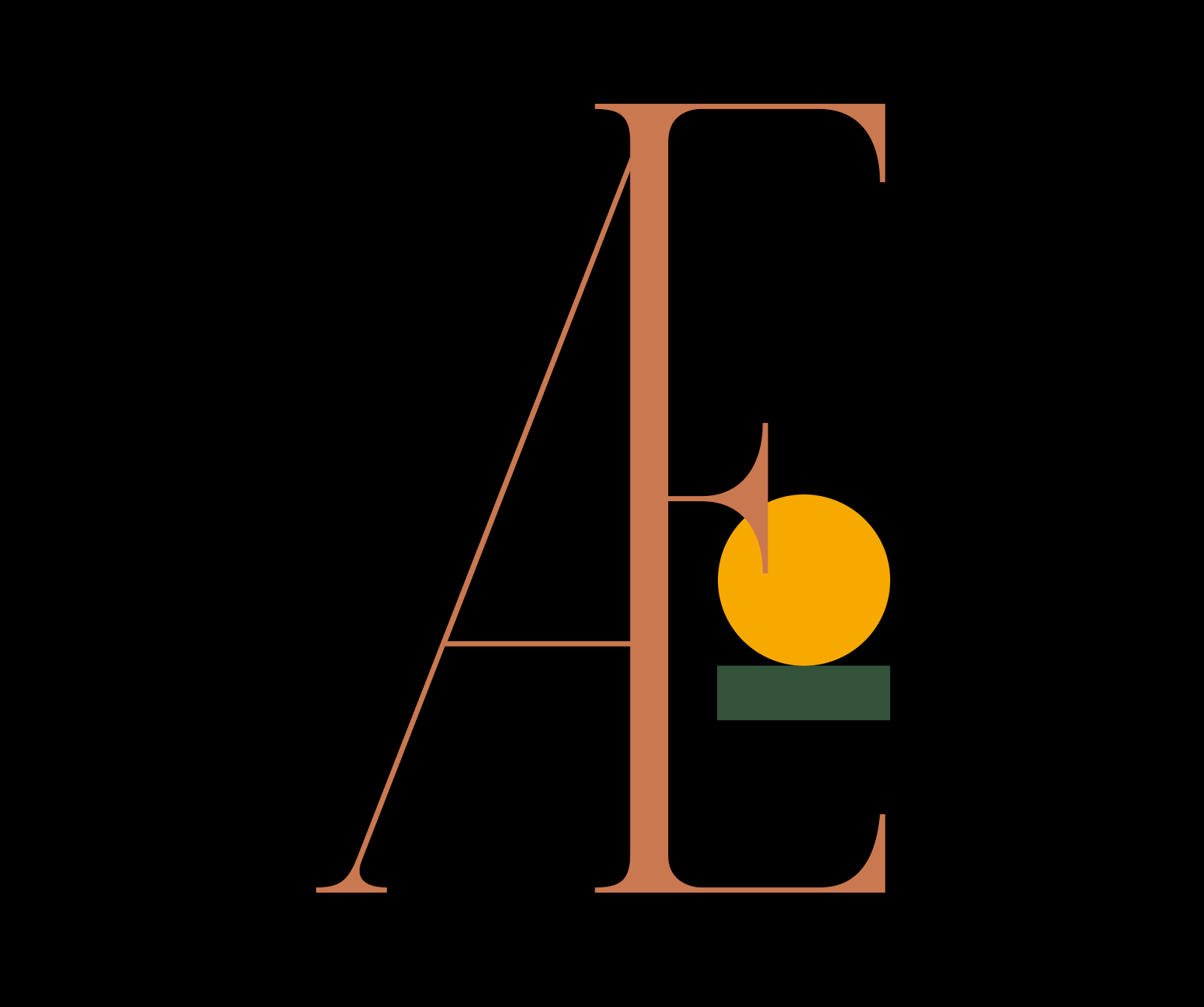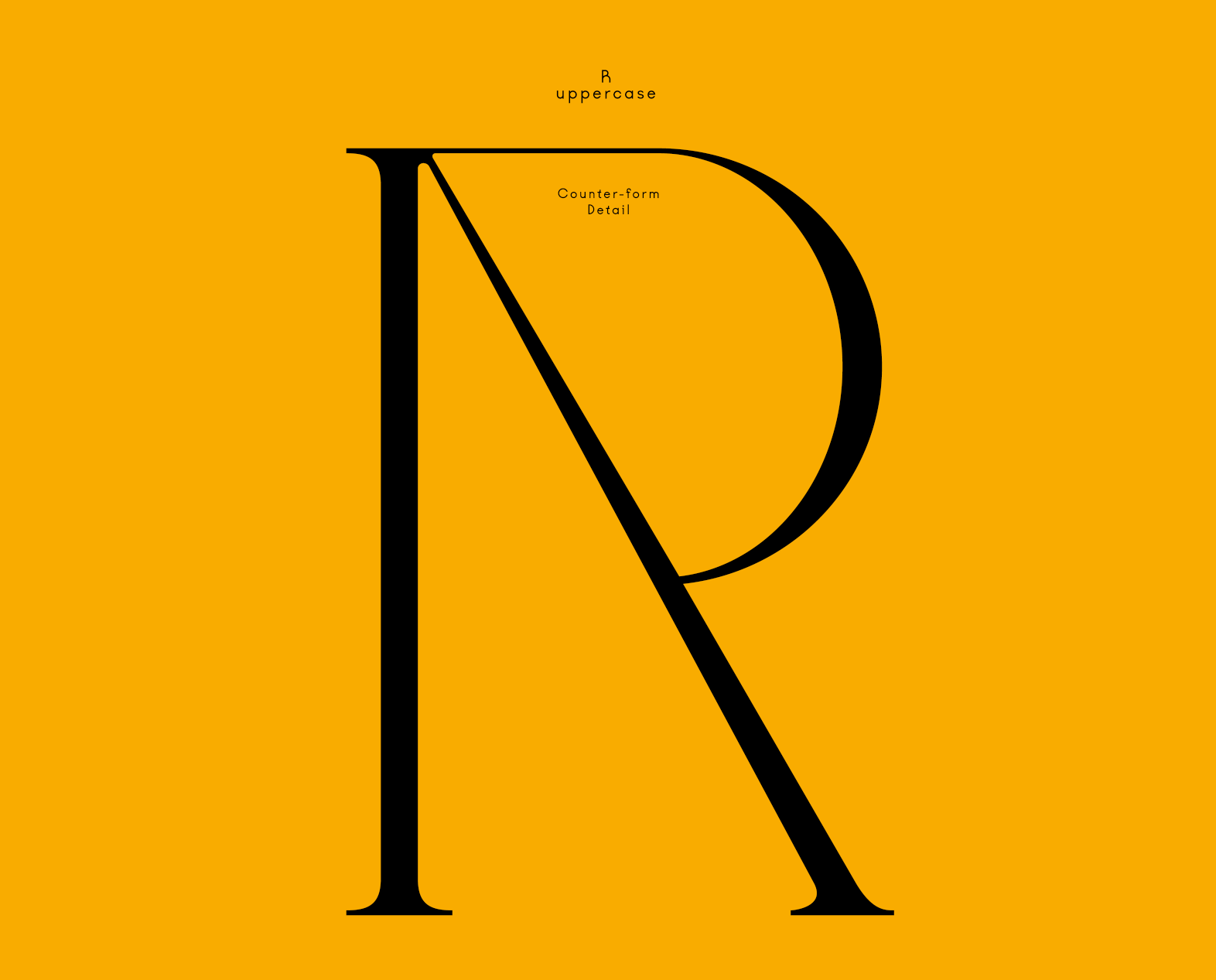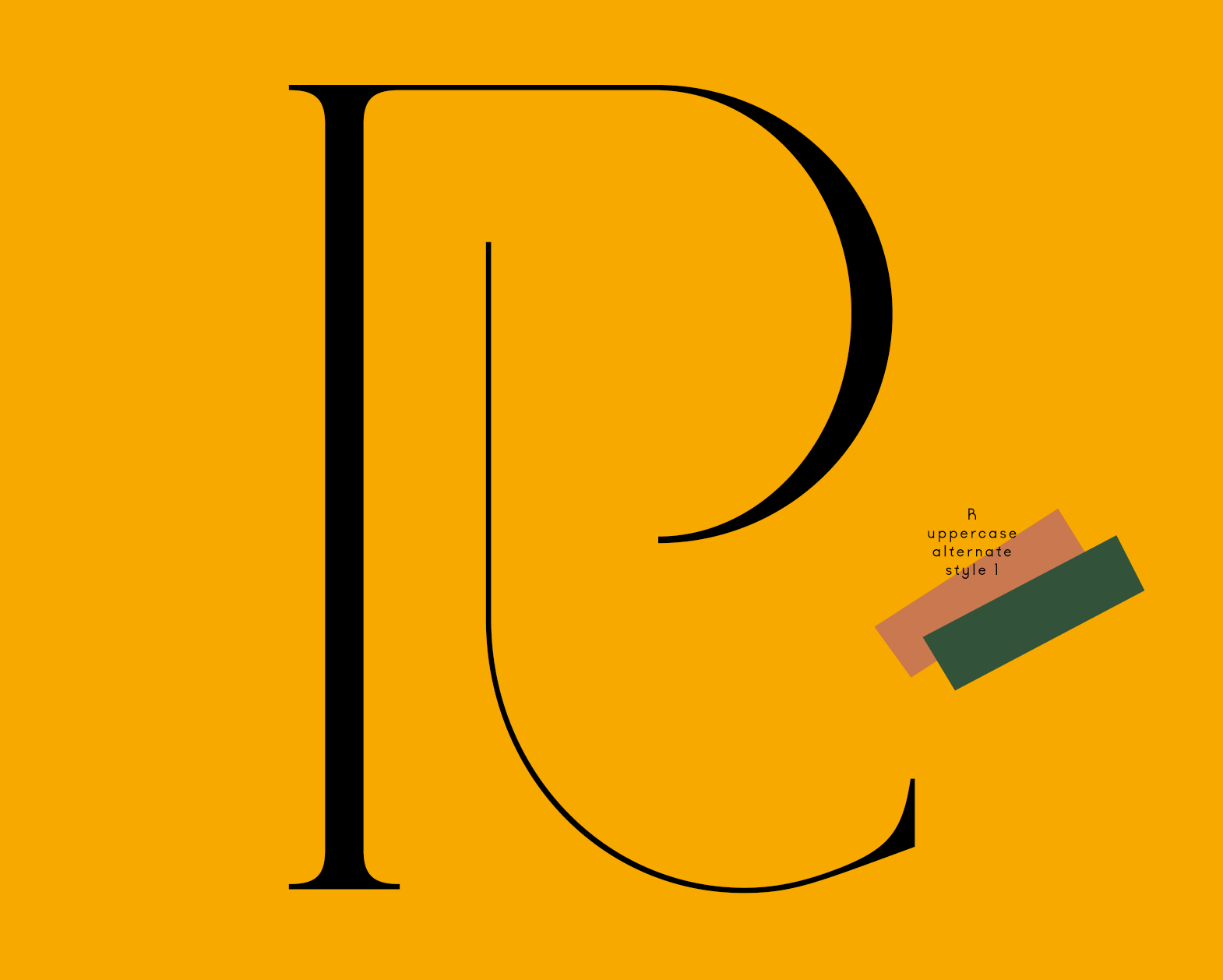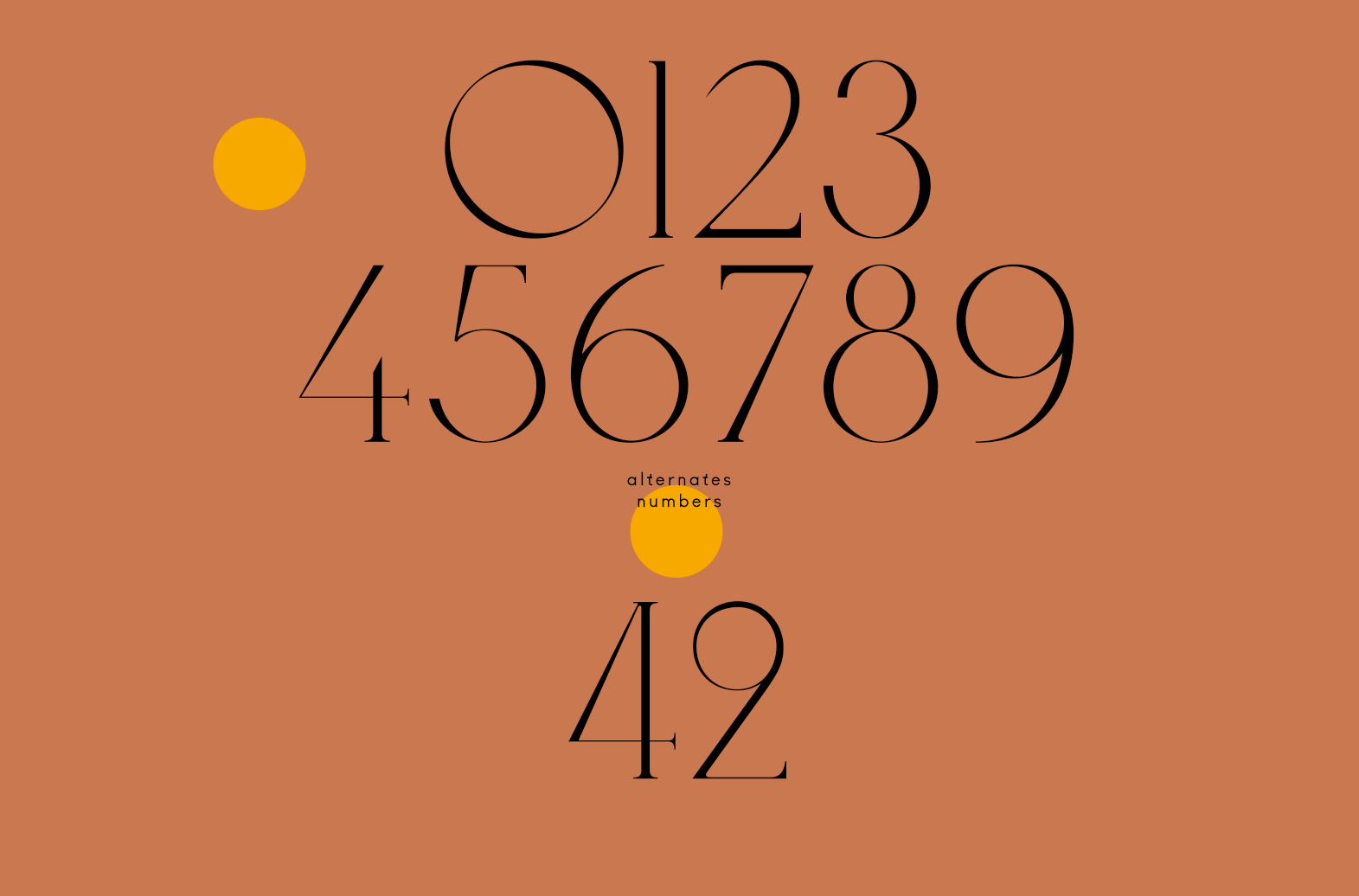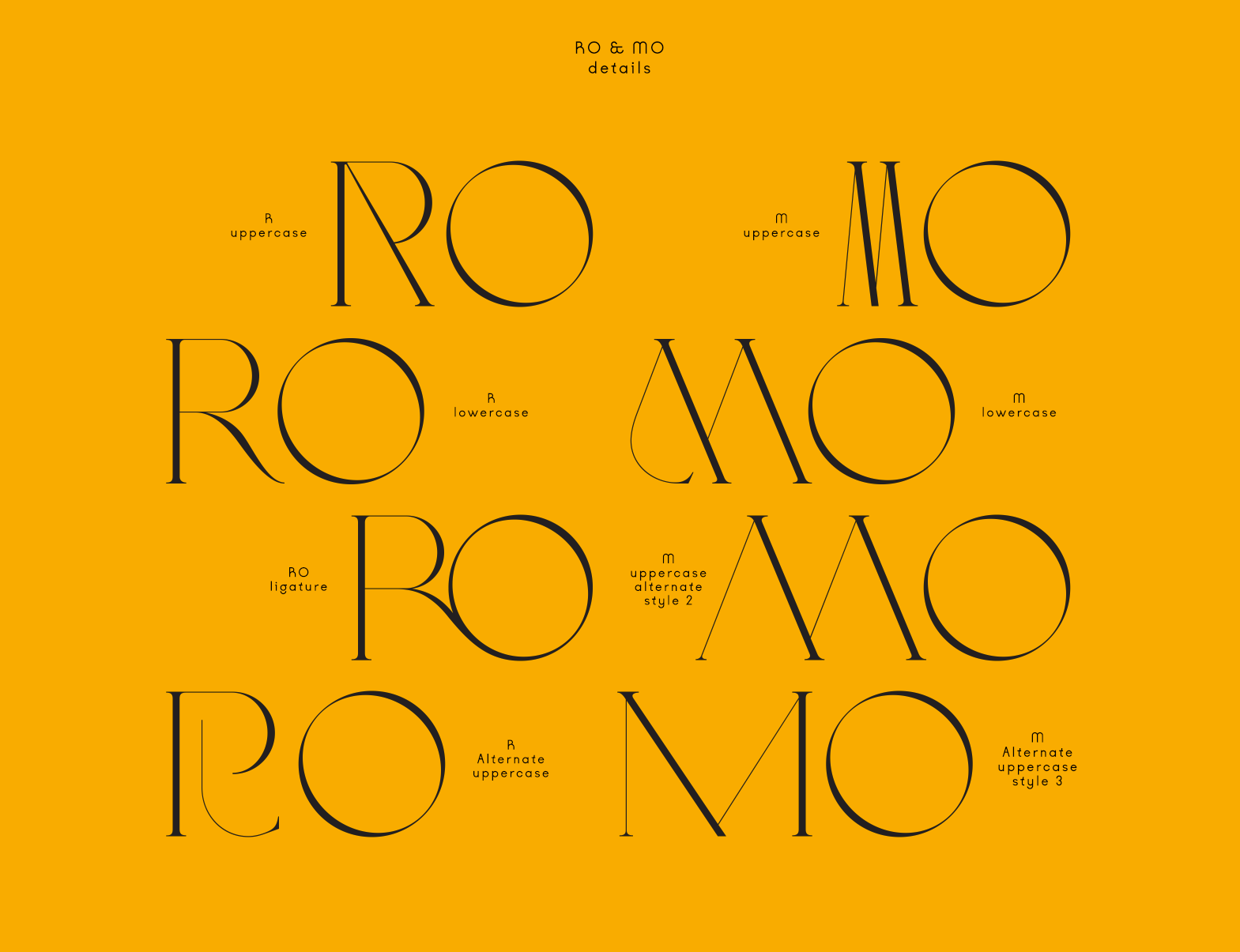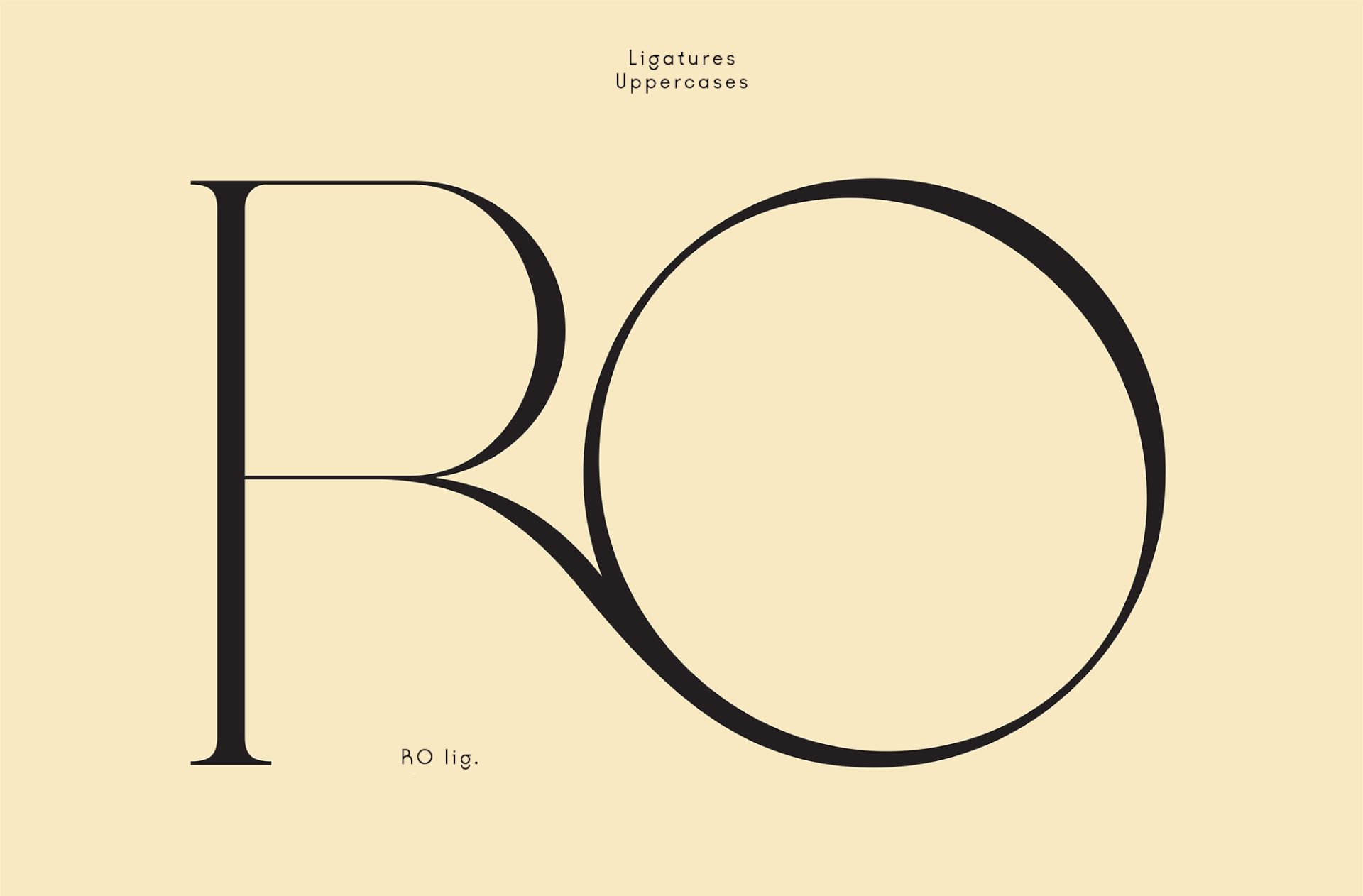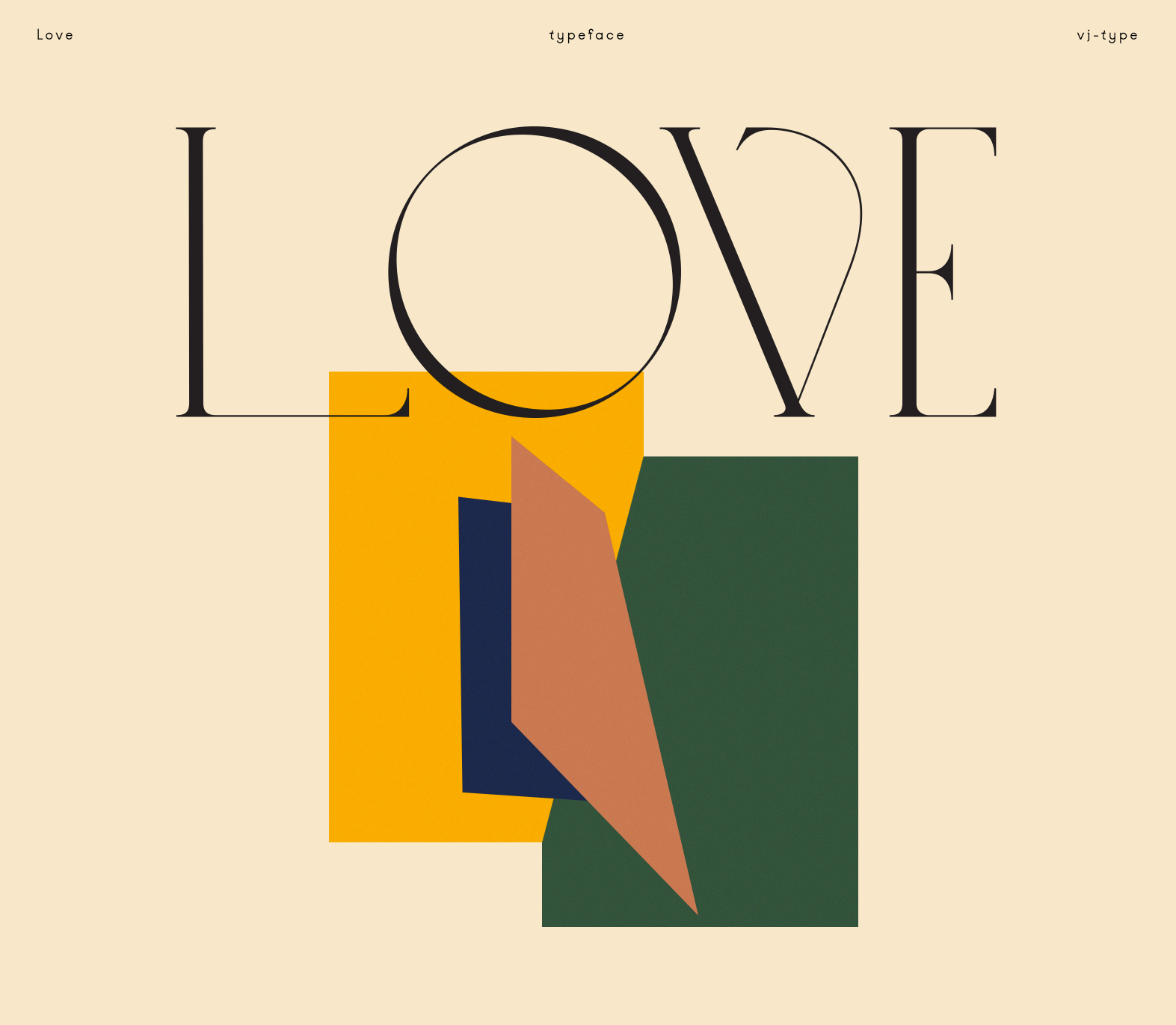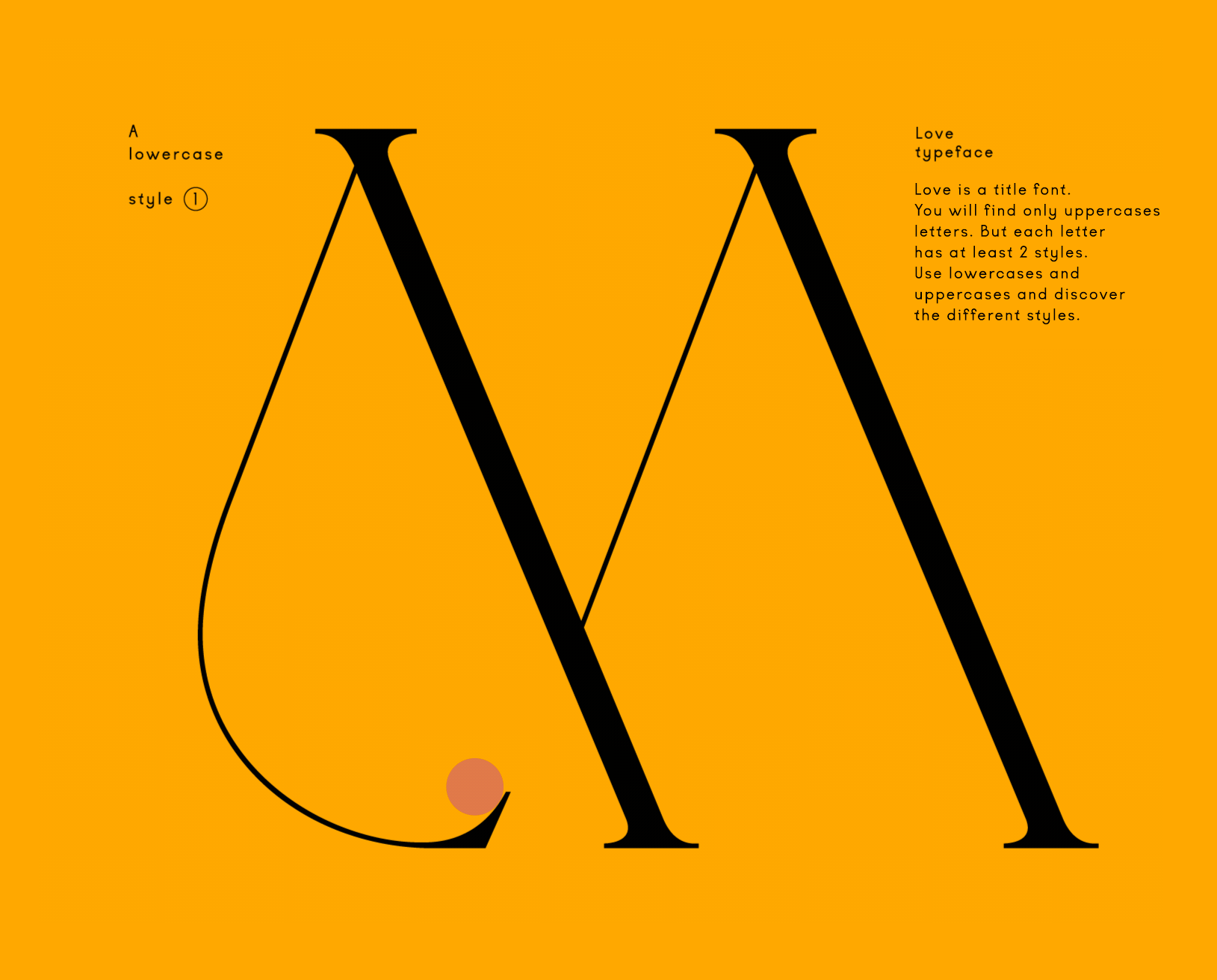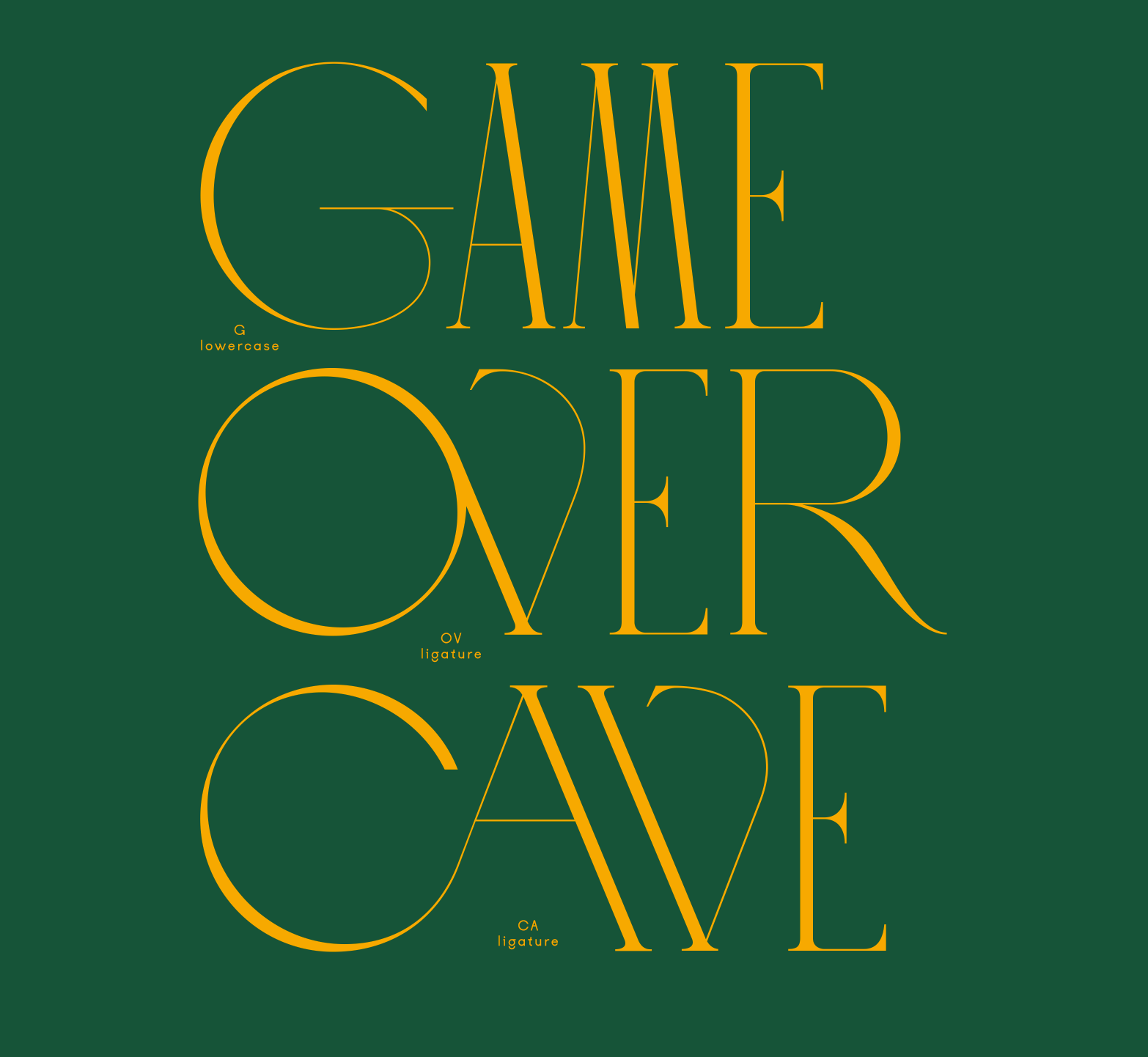
Love typeface
Love typeface was designed in 2018 in Paris. Love is an all-caps display font with each letter available in at least two styles. Many have an even more generous selection of alternates. It is inspired by the American psychedelic rock band Love, and in particular by their marvelous 1967 album Forever Changes. The characters have beautiful contrasts thanks to exaggerated counter-forms paired with thin stems, creating a variety of rhythms that somehow preserve balance among typeset words